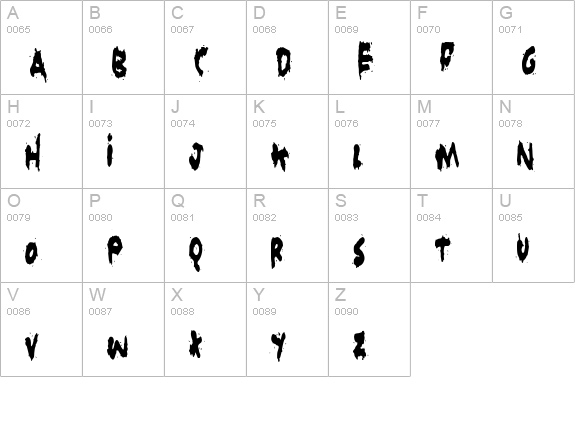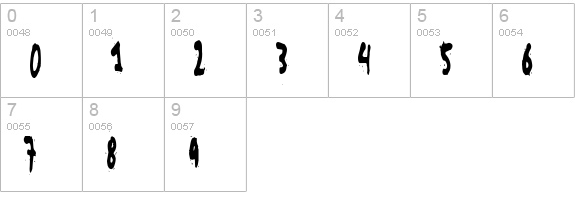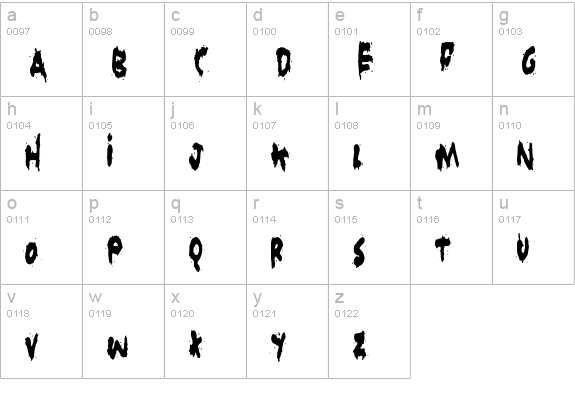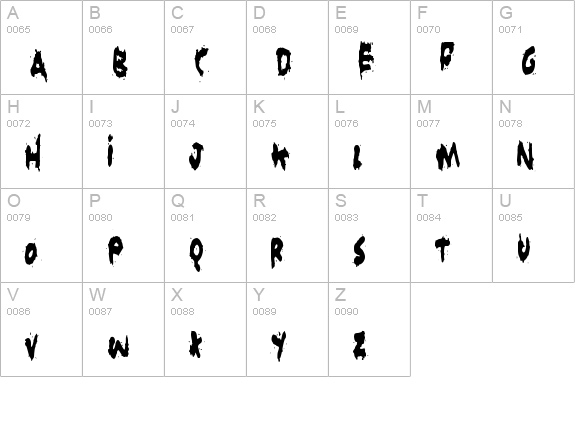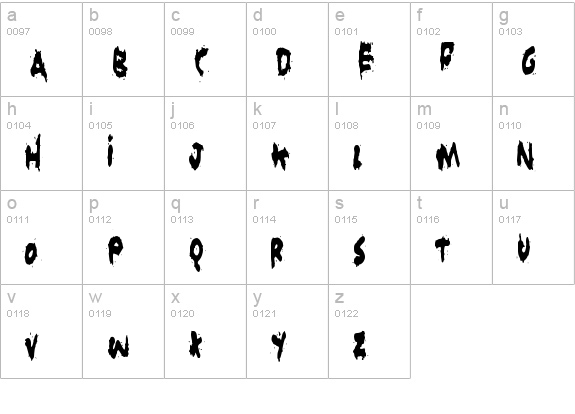
Grunt Reaper Font Details
Grunt Reaper font is a bold and powerful display typeface that exudes a sense of strength and determination. Its sharp edges and rugged appearance make it a perfect choice for projects that require a gritty and impactful look. Whether you're working on a poster, logo, or branding design, Grunt Reaper font will definitely make your text stand out. The best part is, Grunt Reaper font is available for free download at FontsMarket.com. You can easily access this versatile and eye-catching font to elevate your designs without breaking the bank. Don't miss out on the opportunity to add Grunt Reaper font to your font collection today!